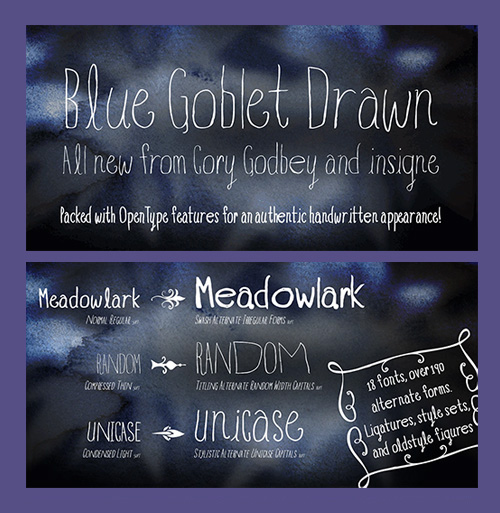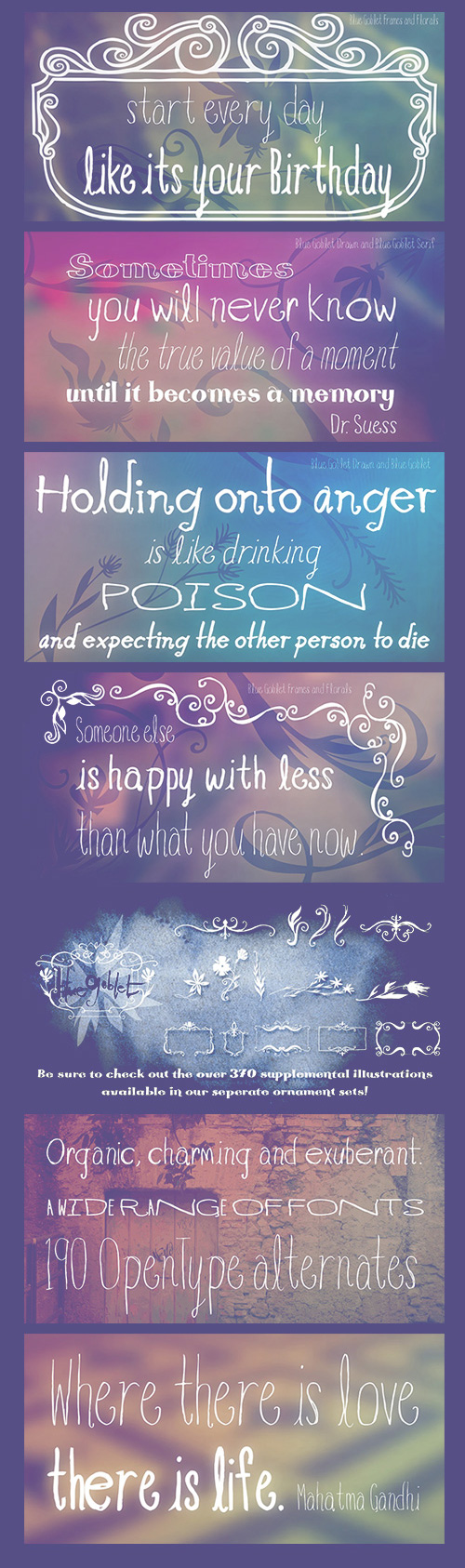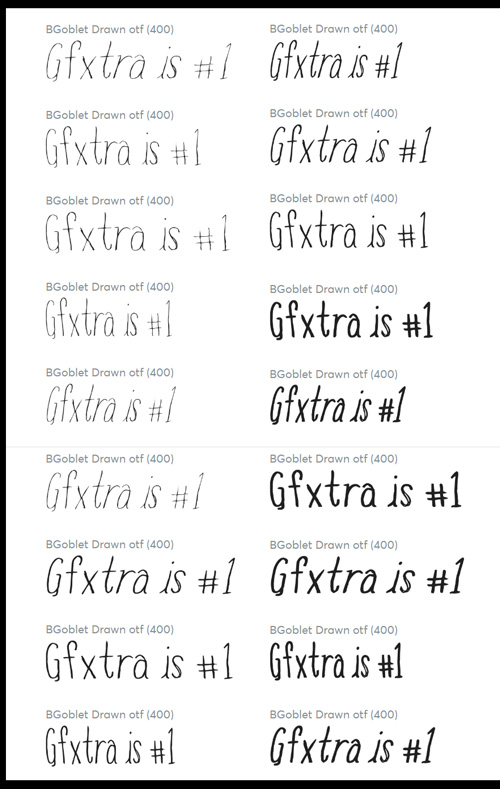
- "Blue Goblet Drawn provides the fun, whimsical experience your project has been looking for. Based on the best-selling series Blue Goblet by artist Cory Godbey and designer Jeremy Dooley, the new, hand-drawn fonts and ornaments dance freely and effortlessly across the baseline and x-height to create a charming and exuberant display.
- The new font family member offers great flexibility to your work, especially when used with the original Blue Goblet fonts and the wide range of ornaments in the supplemental ornament sets. These include doodley frames, lovely florals, and other text ornaments that can be inserted into your text and resized as desired--over 370 illustrations total! The Blue Goblet Series’ artsy versatility gives you the freedom to develop a type system for a very independent yet consistent look that seems to shun convention.
- Blue Goblet Drawn comes in three weights and three widths in each weight. These along with the complementary italics for maximum impact provide a total of eighteen pro fonts. The compact, thin weights are delicate and tall, while the Regular has just enough heft for those situations where subtlety won’t work. If you don't need the professional features, there are three stripped down fonts that include only the basic character set--each for a steep discount!
- Blue Goblet Drawn includes auto-replacing ligatures, adding an organic touch that lends even more of Godbey’s artistic hand to your work. The font face also includes a wide variety of alternates that can be accessed in any OpenType enabled application. Blue Goblet Drawn contains more than 190 additional OpenType glyphs and is loaded with features such as its unique alternate alphabet. Also encompassed in the family’s wide variety are swash alternates, style sets, old style figures, and small caps. Please see the informative PDF brochure to see these features in action. OpenType enabled applications such as the Adobe suite or Quark can take full advantage of the automatic replacing ligatures and alternates. This family also offers the glyphs to support a wide range of languages.
- Blue Goblet Drawn’s hipster aesthetic is a great choice for friendly display type in children's books, on packaging, for organic packaging, or with any number of other unique applications. And as the Blue Goblet series continues to expand, these family members will certainly prove a valuable investment for the future. Use Blue Goblet Drawn and the rest of the Blue Goblet Series wherever you want to inject a handmade sense of fun and whimsy into your designs. Don’t miss out on the fun. Give it a whirl today!"